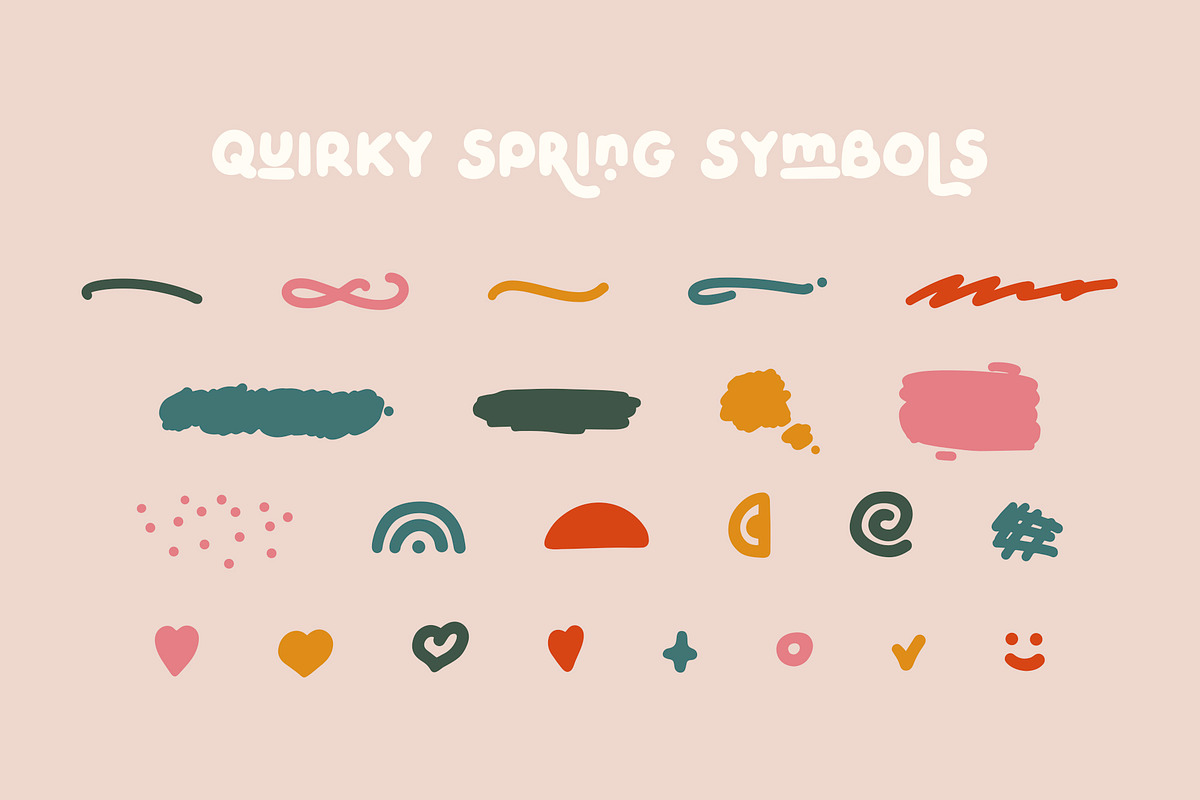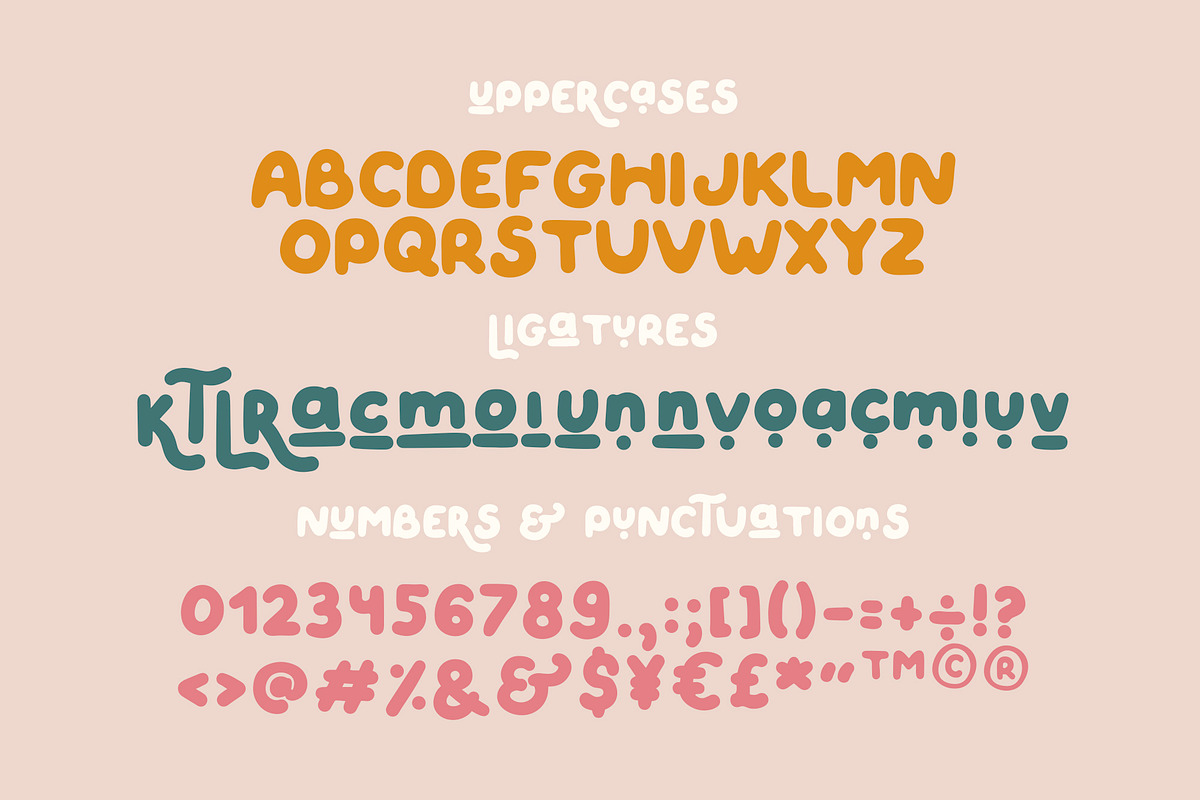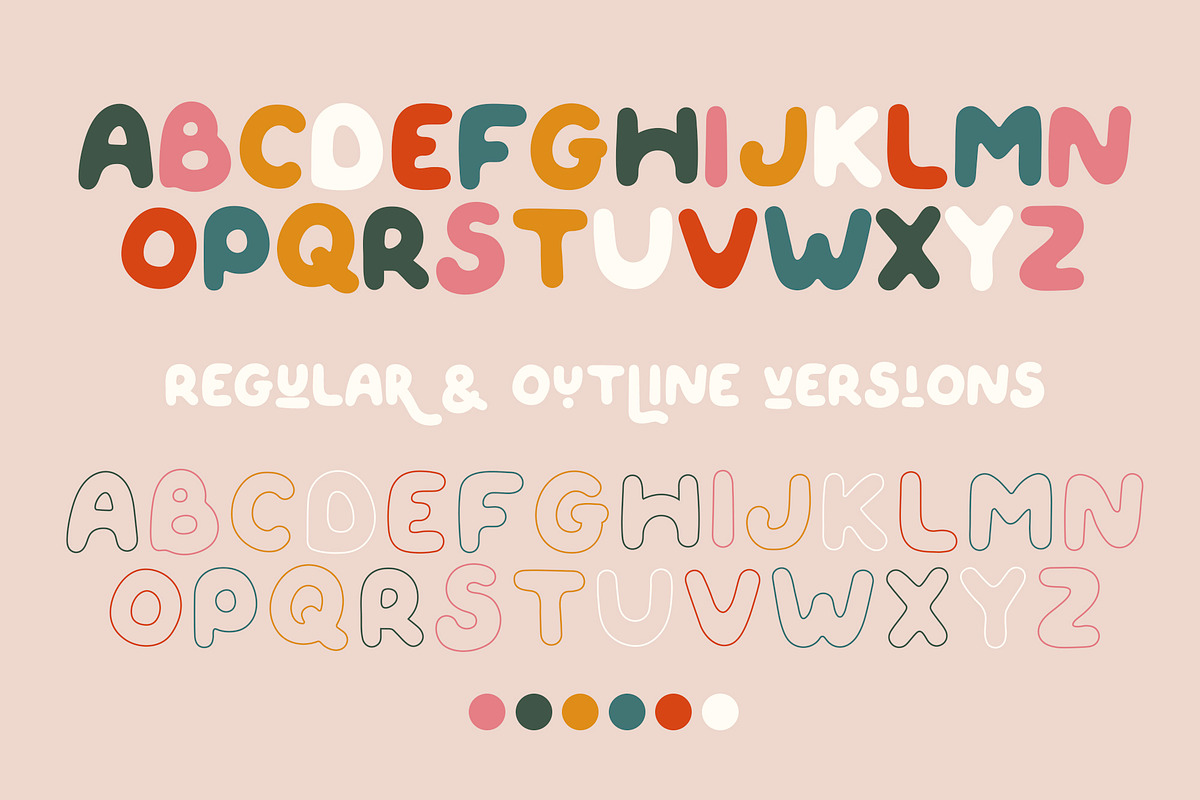
Quirky Spring Font
Quirky Spring is a playful and unexpected display font family designed to bring joy and creativity to your projects. Its uneven, hand-drawn style adds a fun and memorable touch, perfect for creating lighthearted and engaging designs.
Ideal for headings, flyers, greeting cards, product packaging, book covers, printed quotes, logotypes, apparel, album covers, and more, Quirky Spring is versatile enough for both everyday designs and special occasions. Whether you’re working on Scandinavian, children’s projects, summer vacations, baby showers, or birthday cards, this font adds warmth and personality.
Featuring uppercase letters, ligatures, hand-drawn extras, numbers, punctuation, and multilingual support (including French, German, Italian, Norwegian, Portuguese, Spanish, Swedish, and Swiss German), the font empowers you to create designs that feel natural, fun, and truly hand-painted. Let your imagination run wild!